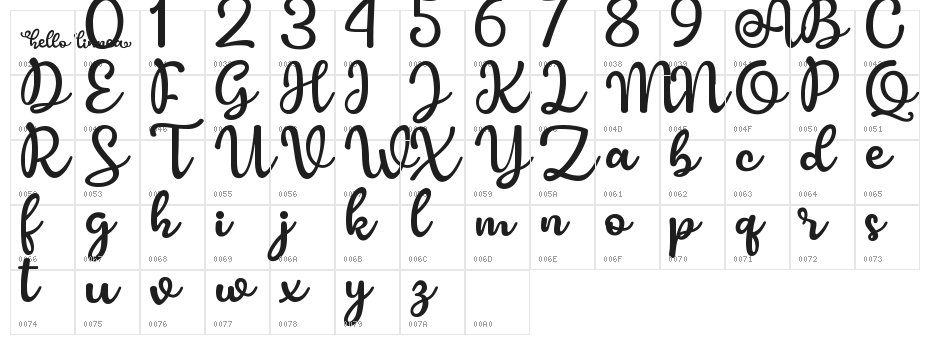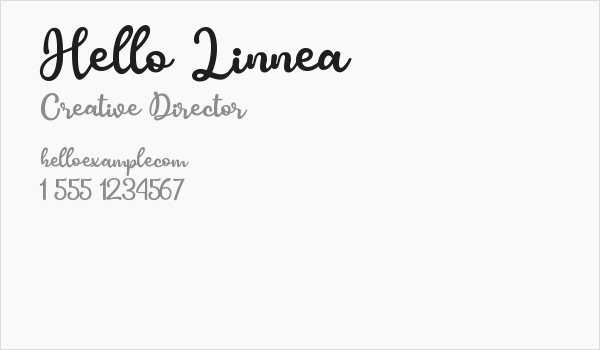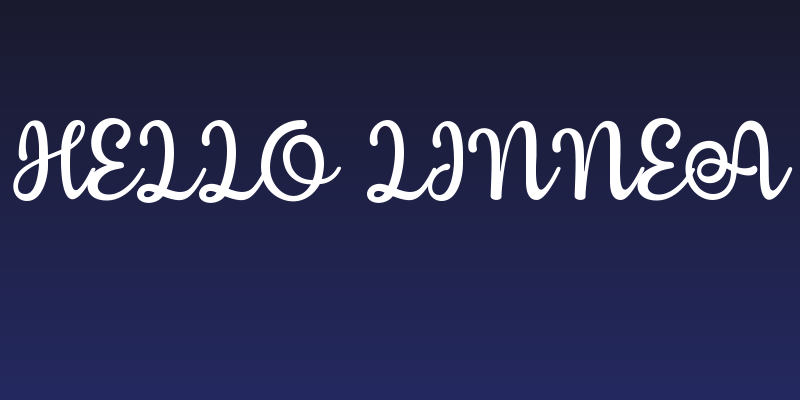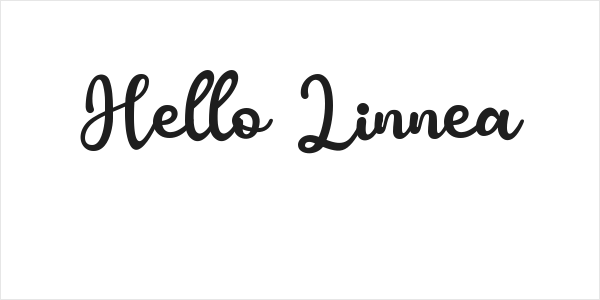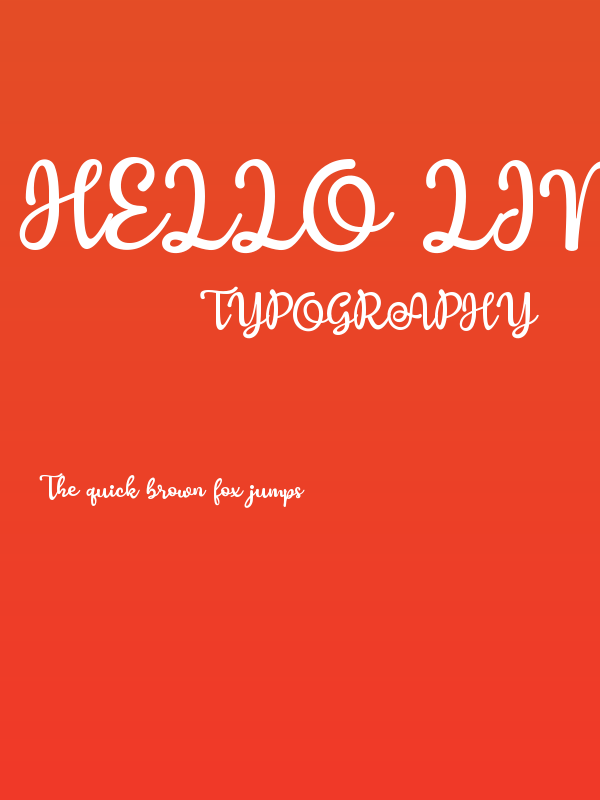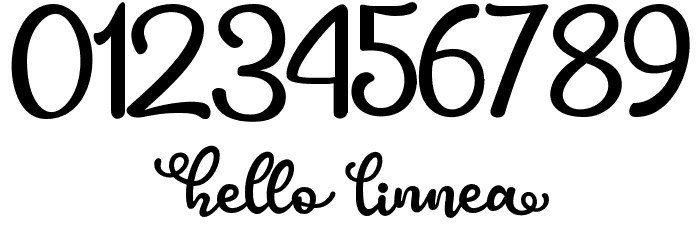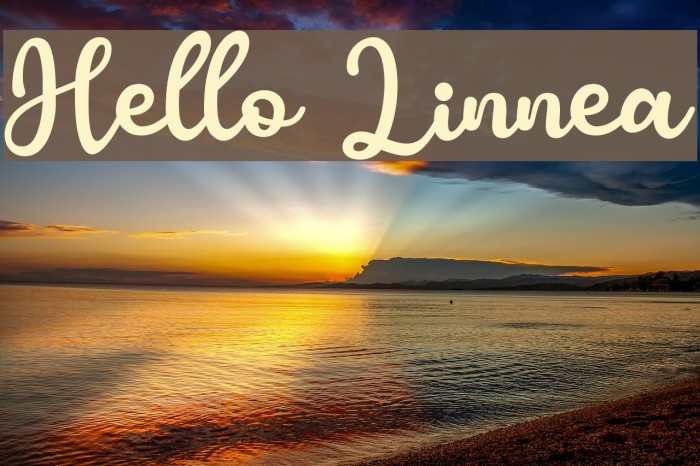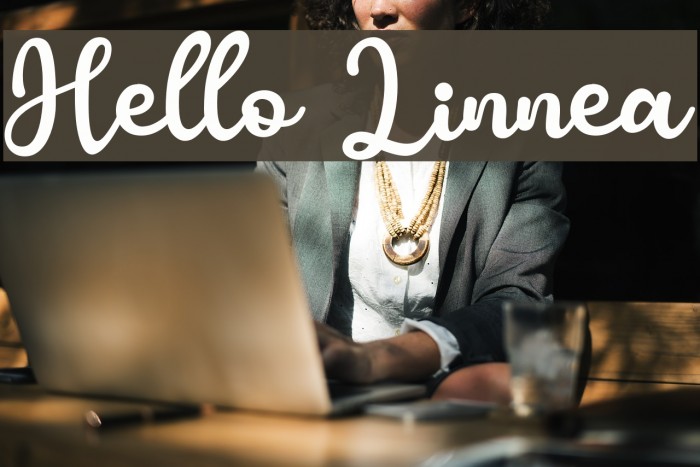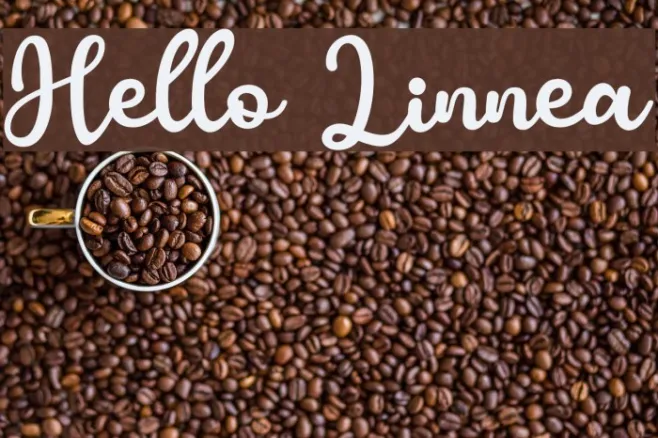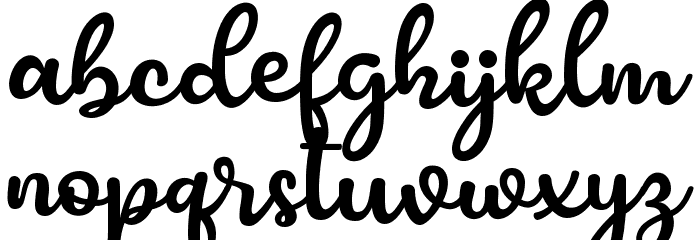
Hello Linnea Font
Hello Linnea Description
This font features a playful and elegant script style with smooth, flowing lines and a handwritten appearance. The uppercase letters are slightly more structured, maintaining a consistent height, while the lowercase letters exhibit a charming, casual flair with loops and curves that add a sense of movement. The numerals are bold and rounded, complementing the overall aesthetic. Special characters are integrated seamlessly, maintaining the font's cohesive look. This font exudes a friendly and approachable vibe, making it suitable for a variety of creative applications.